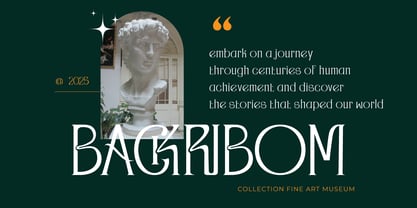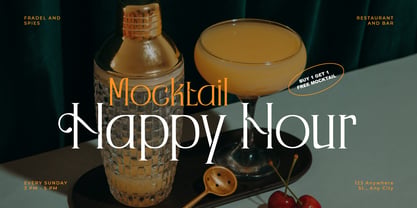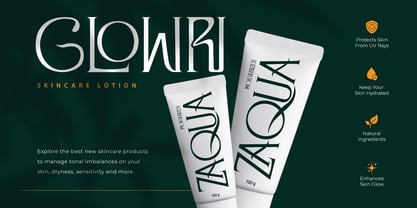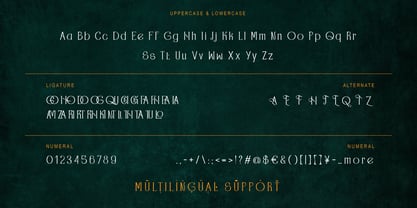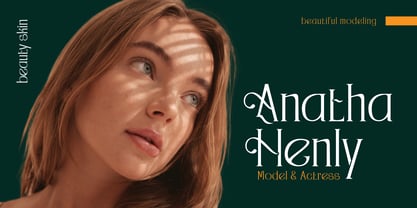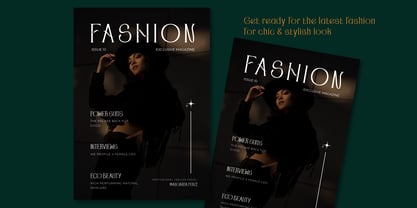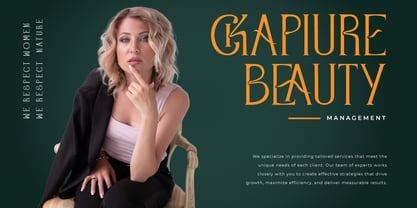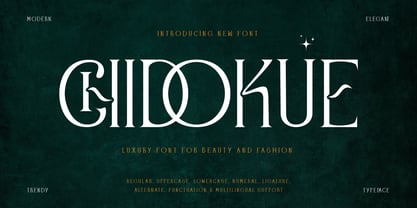
Chidokue
by Twinletter
The Chidokue Font Family was designed by Rozikan and published by Twinletter. Chidokue contains 1 styles. More about this family
Chidokue is an elegant and refined luxury serif font, designed to elevate beauty and fashion branding. With its graceful curves, high contrast strokes, and exquisite letterforms, Chidokue embodies sophistication and exclusivity. Whether you're designing for high-end cosmetics, luxury boutiques, or premium fashion labels, this font adds a touch of class and prestige to any project.
Perfect for logos, packaging, editorial designs, invitations, and advertising, Chidokue seamlessly blends modern luxury with timeless elegance. Its carefully crafted details create an air of refinement, making it an excellent choice for brands that want to exude confidence and style.
Designers: Rozikan Rozikan
Foundry: Twinletter